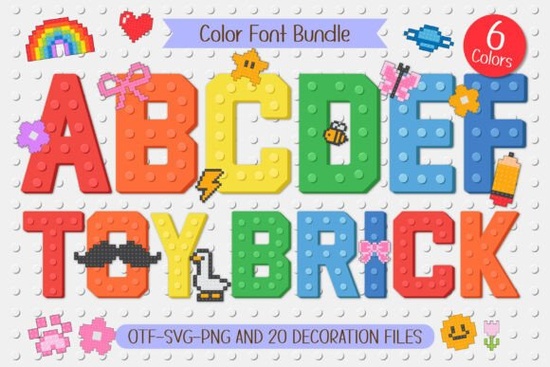
If you’re looking for a playful, tactile font that brings the joy of building blocks to your designs, the Toy Brick Font is a natural fit. It’s not just another pixel font it’s built around the visual language of real toy bricks, with subtle stud textures, chunky proportions, and a warm, hands-on feel. Whether you're designing kids’ birthday invitations, classroom posters, or custom name stickers for preschoolers, this set delivers consistency and charm without sacrificing readability.
What makes this font different from other playful fonts?
Most “fun” fonts lean heavily into cartoonish curves or exaggerated bounce but the Toy Brick Color Font stands out because it mimics physical construction toys in both shape and texture. Each uppercase and lowercase letter includes realistic brick-stud detail, so even at small sizes, the blocky character remains clear. Unlike flat outline fonts or generic rounded sans-serifs, this one feels built, not drawn.
The set comes in six carefully balanced colors think primary red, cobalt blue, sunshine yellow, leafy green, berry pink, and charcoal grey not neon-bright, but rich enough to print cleanly on fabric, paper, or vinyl. And since color is baked into the glyphs (not applied as a layer), you get crisp, predictable results every time.
How do the Pixel Doodles work with the font?
Beyond letters, the package includes 20 hand-crafted Pixel Doodles: bows, butterflies, stars, flowers, lightning bolts, hearts, rainbows, and more all designed at the same scale and with matching brick texture. They’re not clipart; they’re vector shapes meant to sit alongside or inside letters (like a bow tied around a “B”, or a butterfly perched on a “D”).
You’ll find them especially useful for:
- Personalizing names on party banners or nursery wall art
- Adding visual rhythm to educational flashcards or alphabet posters
- Creating themed sticker sheets for teachers or homeschoolers
- Building cohesive product bundles for print-on-demand shops
Because everything shares the same visual logic same stroke weight, same corner radius, same stud spacing the doodles integrate seamlessly, not as afterthoughts.
Who uses this font and where does it perform best?
Designers creating early-learning materials often tell us this font helps reduce cognitive load for young readers: the bold shapes and consistent spacing support letter recognition better than overly decorative alternatives. Crafters use it for iron-on transfers on toddler tees, while small businesses rely on it for consistent branding across birthday kits, daycare signage, and subscription box inserts.
If you’ve tried other colorful fonts like Brick Font or Pixel Block Font, you’ll notice Toy Brick Font has more intentional spacing and fewer optical compromises at smaller sizes.
Where can you use it right away?
- Use the charcoal grey version for clean, modern baby milestone cards (e.g., “First Steps”, “First Words”) then add a tiny lightning bolt or flower in red or yellow
For deeper integration, explore how the Toy Brick Color Font pairs with coordinating pattern brushes or brick-textured SVG backgrounds many users combine it with subtle grout lines or shadow layers to reinforce the 3D illusion.